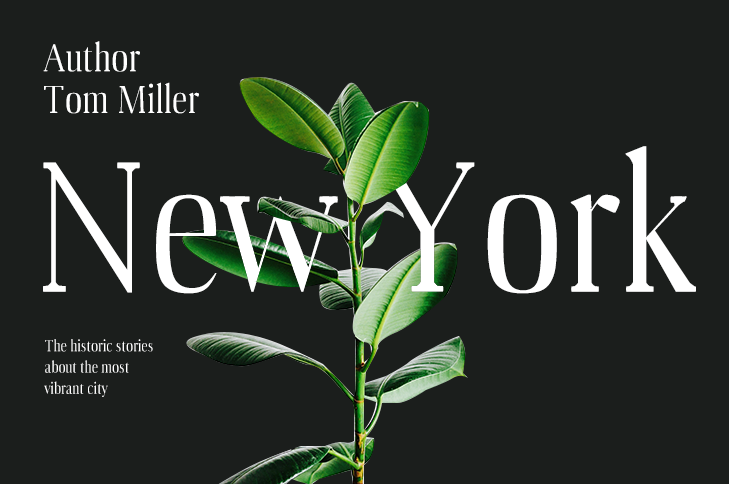
Font name: | Producer |
Author: | Istiko Rahadi |
Note by Istiko Rahadi | |
The font is based on Spectral with the twist, I made it be more into urban feeling. Perfect for a cover book or poster. Enjoy! |